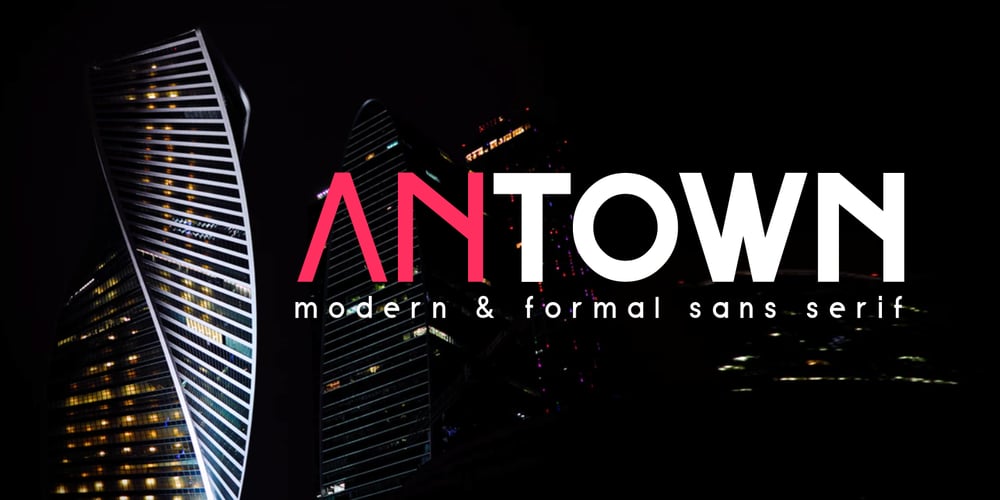
Antown
Antown font
Antown Font Family was designed by Nur Faidin and published by Nurf Designs. Antown contains 4 styles and family package options. Antown is a modern & formal sans family and has 4 variants (Regular, Italic, Bold & Bold Italic). It comes with uppercase, lowercase, numerals, punctuations, some alternate characters, and multilingual support. We hope you will enjoy our work.